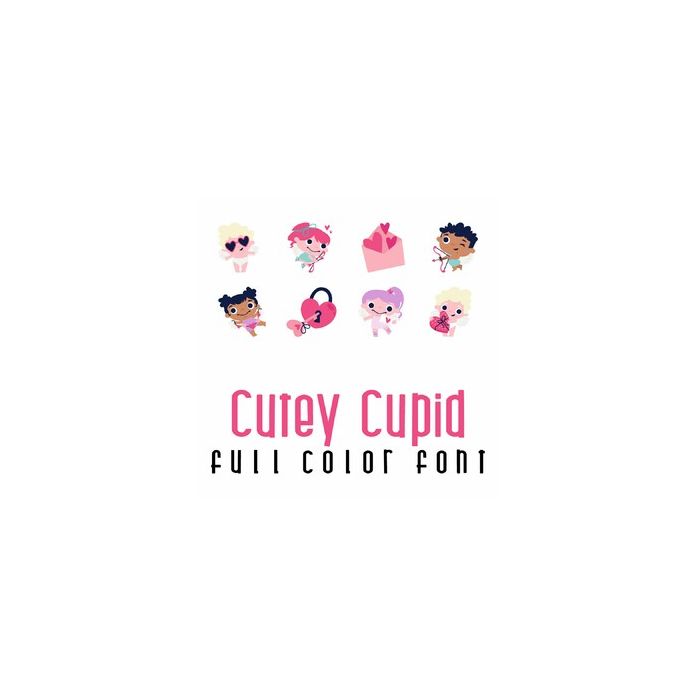
This adorable full-color doodlebat font features 26 cute cupids ready for lvoe. Perfect for cards, crafts, gifts, decor, scrapbook pages, planner stickers, and more!